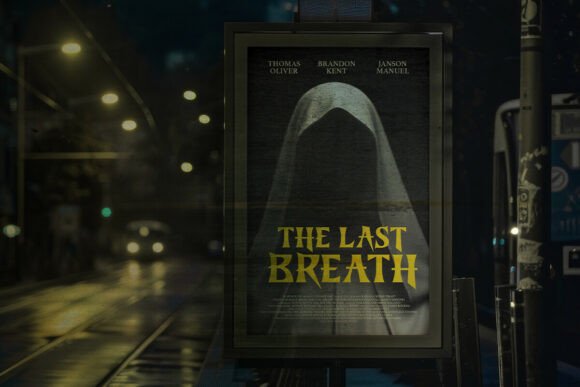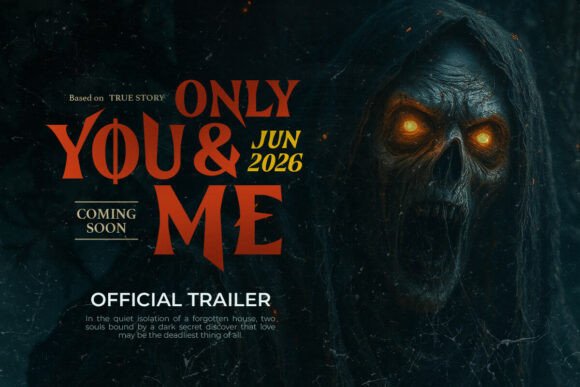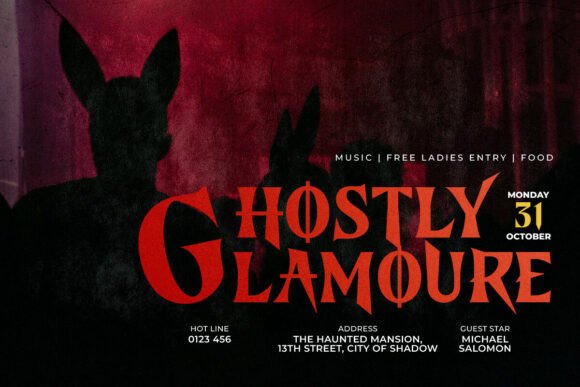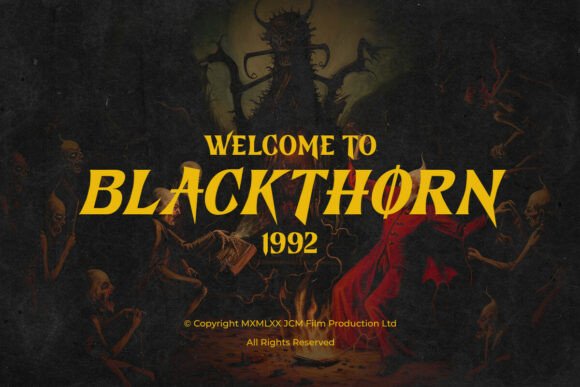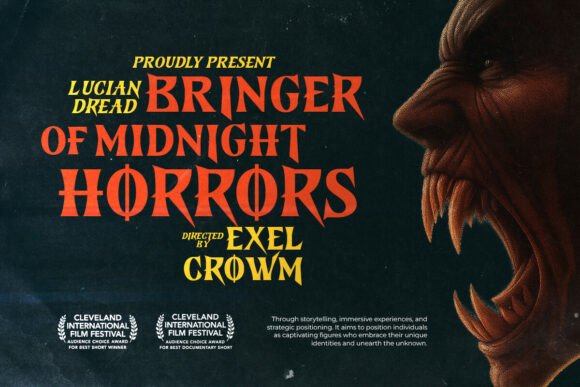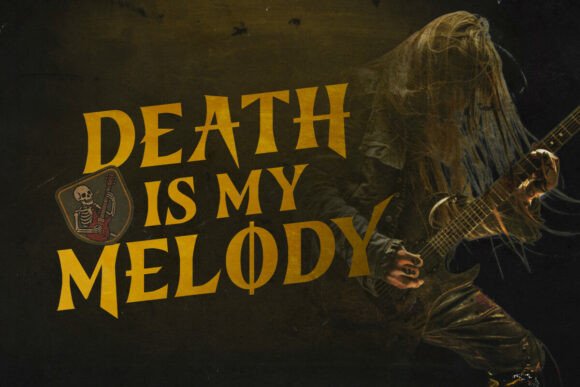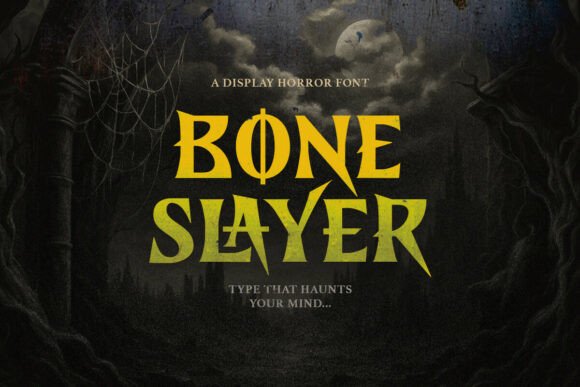
Bone Slayer Font: Unleash the Horror with this Bold Serif Font
Are you looking for a font that can add a touch of horror and creepiness to your design project? Look no further than the Bone Slayer Font, a serif-based font that is perfect for creating bold and sharp appearances. In this article, we’ll dive into the features and benefits of Bone Slayer, and explore how you can use it to take your designs to the next level.
What is Bone Slayer Font?
Bone Slayer Font is a serif-based font that is designed to evoke a sense of horror and creepiness. With its bold and sharp lines, this font is perfect for creating designs that require a strong and edgy appearance. Whether you’re working on a Halloween poster, a horror film poster, a logotype, or a book cover, Bone Slayer is the perfect choice.
Key Features of Bone Slayer Font
• Serif-based design: Bone Slayer features a classic serif design that adds a touch of sophistication and elegance to your designs.
• Horror and creepy vibes: The font’s bold and sharp lines create a sense of horror and creepiness that’s perfect for Halloween-themed designs or horror film posters.
• Multi-language support: Bone Slayer supports multiple languages, making it a versatile font that can be used for a wide range of projects.
• Bold and sharp appearance: The font’s bold lines create a sharp and edgy appearance that’s perfect for designs that require a strong impact.
Use Cases for Bone Slayer Font
Bone Slayer Font is a versatile font that can be used for a wide range of projects. Here are some use cases where Bone Slayer shines:
• Halloween Posters: Create spooky and eye-catching Halloween posters with Bone Slayer’s bold and creepy design.
• Horror Film Posters: Add a touch of horror and suspense to your film posters with Bone Slayer’s sharp and edgy lines.
• Logotypes: Create a bold and memorable logotype for your brand with Bone Slayer’s unique design.
• Book Covers: Use Bone Slayer to create a bold and eye-catching book cover that will stand out on bookshelves.
Benefits of Using Bone Slayer Font
So why choose Bone Slayer Font for your design project? Here are some benefits of using this versatile font:
• Unique Design: Bone Slayer’s bold and creepy design will set your project apart from the rest.
• Versatility: The font’s multi-language support and versatility make it perfect for a wide range of projects.
• Easy to Read: Despite its bold design, Bone Slayer is easy to read, making it perfect for body text and headlines.
• High-Quality: Bone Slayer is a high-quality font that will add a touch of professionalism to your designs.
In conclusion, Bone Slayer Font is a powerful and versatile font that is perfect for designers and crafters looking to add a touch of horror and creepiness to their designs. With its bold and sharp lines, multi-language support, and versatility, Bone Slayer is the perfect choice for a wide range of projects, from Halloween posters to horror film posters, logotypes, and book covers. So why wait? Download Bone Slayer Font today and unleash the horror in your designs!